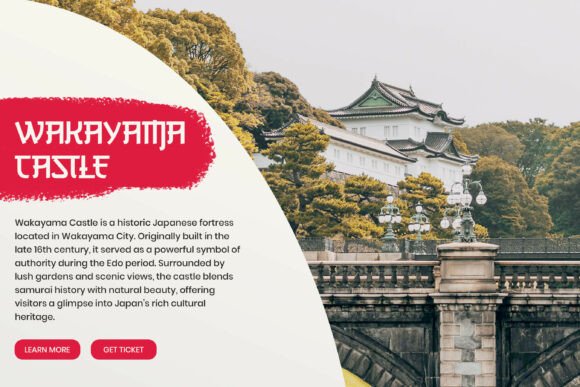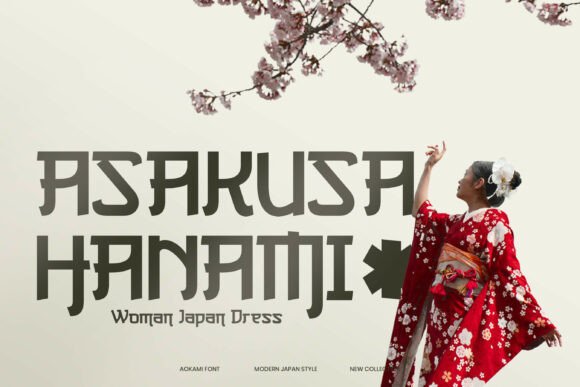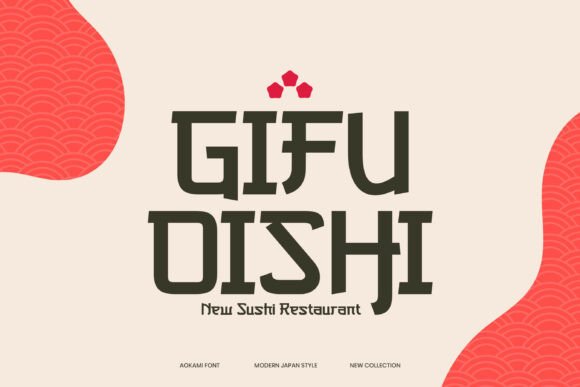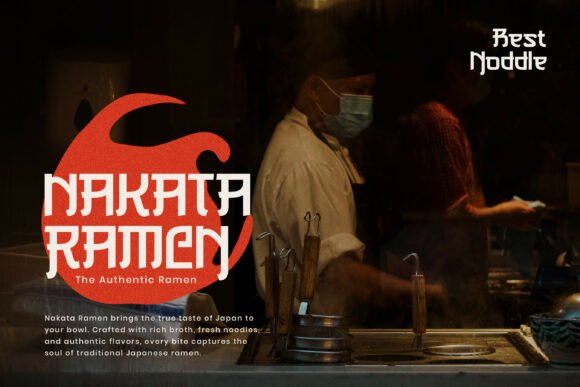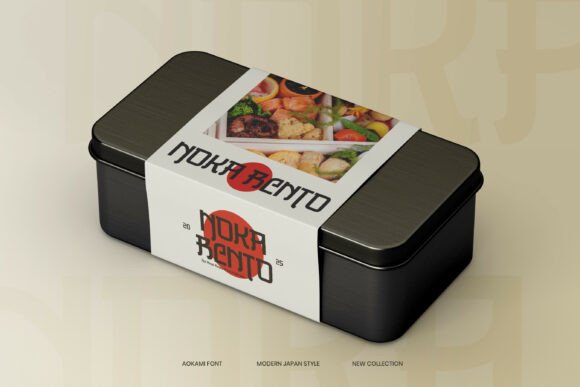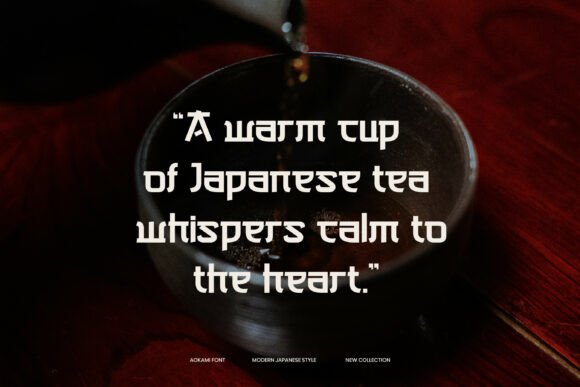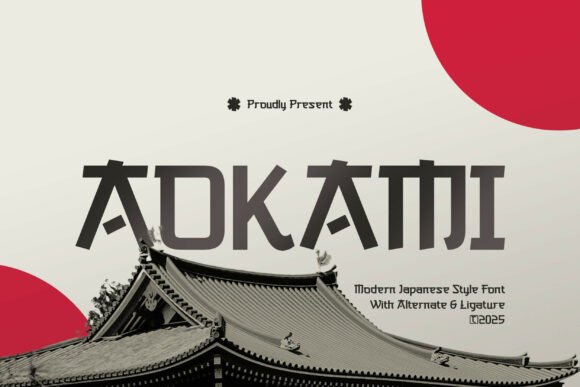
Aokami Font: Elevate Your Design with a Sharp and Contemporary Japanese-Inspired Typeface
In the realm of typography, fonts play a crucial role in conveying the essence and aesthetic of a design. For creatives seeking to infuse their projects with a strong Eastern influence, Aokami Font emerges as a stellar choice. This sharp and contemporary Japanese-inspired typeface is meticulously crafted to bring cultural elegance into modern design, making it an ideal selection for a wide array of applications.
The Essence of Aokami Font
Aokami Font is distinguished by its bold angular strokes, precise geometry, and subtle traditional touches. This unique blend of modernity and heritage results in a typeface that is not only visually striking but also deeply rooted in Japanese aesthetics. The font’s design ensures that it stands out in any medium, whether it’s for branding, posters, logos, packaging, or creative projects aiming to capture a distinct Eastern vibe.
Key Features of Aokami Font
- Bold Angular Strokes: Aokami’s bold strokes lend a sense of strength and assertiveness to any design, making it perfect for headlines, titles, and statements that need to make an impact.
- Precise Geometry: The geometric precision of Aokami contributes to its modern feel, ensuring that it fits seamlessly into contemporary design landscapes while maintaining its unique cultural flair.
- Subtle Traditional Touches: The subtle nods to traditional Japanese typography add depth and a sense of cultural authenticity, allowing designers to incorporate an Eastern aesthetic into their work with ease.
Applications of Aokami Font
Aokami Font’s versatility makes it suitable for a myriad of design applications. Here are some of the key areas where Aokami truly shines:
- Branding: For brands looking to establish a strong, culturally rich identity, Aokami offers a distinctive edge that can set them apart in a crowded market.
- Posters and Flyers: The font’s bold presence makes it an excellent choice for posters and flyers that require attention-grabbing typography.
- Logos: Aokami’s unique blend of modernity and tradition makes it an attractive option for logos seeking to convey innovation with a nod to heritage.
- Packaging: For product packaging that needs to stand out on shelves, Aokami’s distinctive style can add an element of sophistication and cultural elegance.
- Creative Projects: Whether it’s for a website, a digital project, or any form of creative expression, Aokami provides a robust typographic solution that enhances the visual and cultural appeal of the work.
Why Choose Aokami Font?
Choosing Aokami Font for your design projects comes with several advantages:
- Cultural Elegance: Aokami brings a touch of Japanese elegance and sophistication to modern design, offering a unique aesthetic that is both contemporary and deeply rooted in tradition.
- Versatility: Its adaptability across various design applications makes Aokami a valuable addition to any designer’s toolkit.
- Impact: The font’s bold and angular design ensures that your message is conveyed with clarity and impact, capturing the attention of your audience.
Aokami Font stands as a testament to the beauty of blending traditional aesthetics with modern design principles. Its sharp, contemporary look, coupled with its deep cultural roots, makes it an invaluable resource for designers and crafters aiming to infuse their projects with a strong Eastern influence. Whether you’re working on branding, posters, logos, packaging, or any creative project, Aokami Font offers the perfect blend of elegance, modernity, and cultural authenticity to elevate your design.
Embrace the elegance of Japanese typography and the assertiveness of modern design with Aokami Font. Explore its potential and discover how it can transform your creative projects into visually stunning and culturally rich expressions.